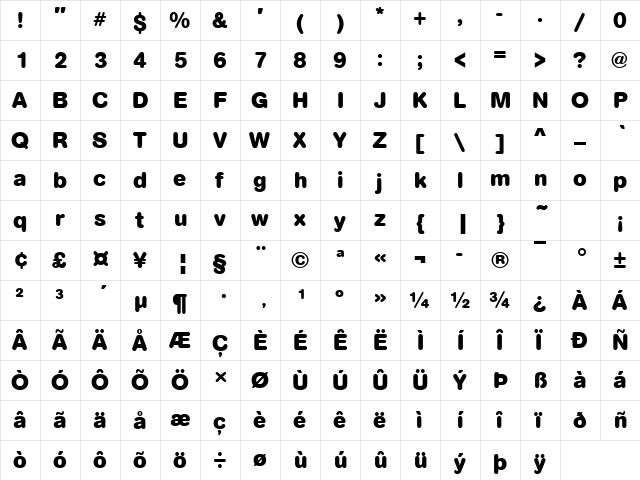
URWAccidaliaBucRouD Bold
Design Context for URWAccidaliaBucRouD Typeface
URWAccidaliaBucRouD offers clean, dependable letterforms without strong stylistic allegiance, making it a practical choice for designers who need flexibility. The heavy weight commands attention and anchors typographic hierarchies.